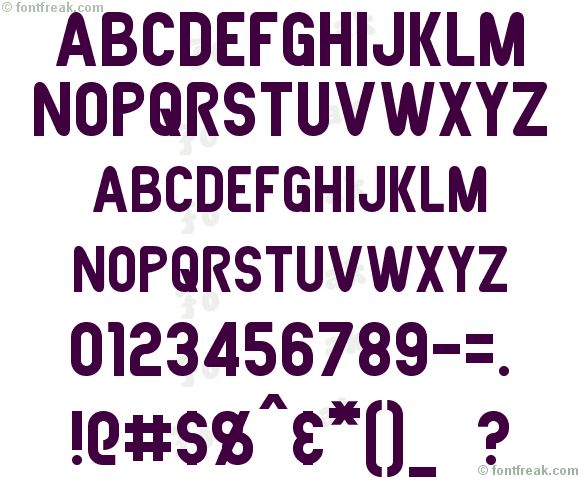
Joystick
The Joystick font, designed by Neale Davidson in 2012, is a striking display typeface that embodies a playful yet modern aesthetic. This sans-serif font features a bold stroke weight, giving it a commanding presence that captures attention. The letters are characterized by their geometric shapes and rounded edges, which contribute to a friendly and inviting look. With minimal contrast between the thick and thin strokes, Joystick maintains a consistent appearance, making it easy to read in various contexts. The spacing is well-balanced, ensuring that each character stands out while still maintaining a cohesive flow.
Joystick's unique style makes it an excellent choice for a variety of applications. It is particularly well-suited for video game branding, where its playful nature can resonate with a younger audience. Additionally, the font can be effectively used for eye-catching event posters, where bold typography can draw in attendees. Restaurant menus can also benefit from Joystick's modern vibe, appealing to patrons looking for a casual dining experience. Small business owners can leverage this font for promotional materials, ensuring their branding feels contemporary and engaging. Content creators will find it ideal for social media graphics, where standing out is crucial in crowded feeds.
The target audience for Joystick includes graphic designers seeking to add a dynamic touch to their projects, small business owners wanting to craft a memorable brand identity, and content creators aiming to attract attention in a visually-driven digital landscape.
What sets the Joystick font apart is its ability to blend fun with functionality, making it a versatile choice for anyone looking to create striking visual content. With the Joystick font free download, users can easily incorporate this distinctive typeface into their designs, enhancing their creative projects with its lively charm.